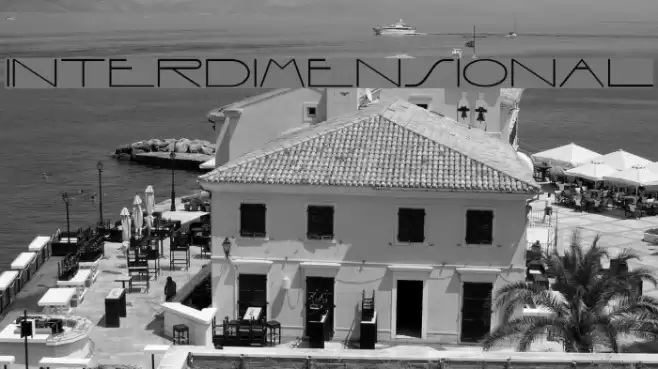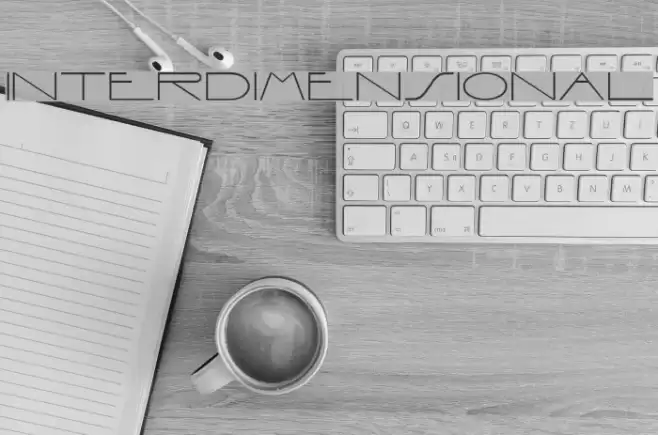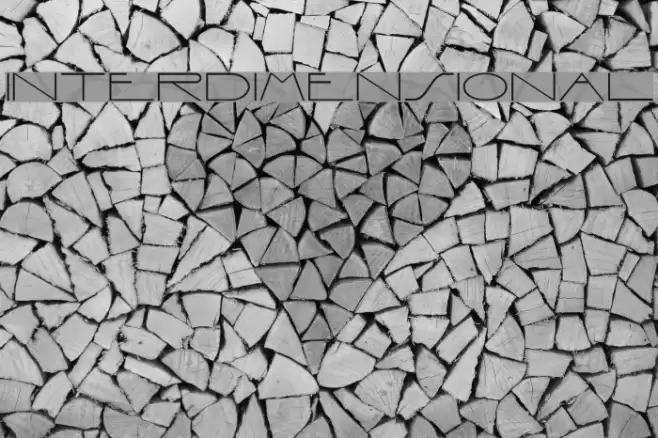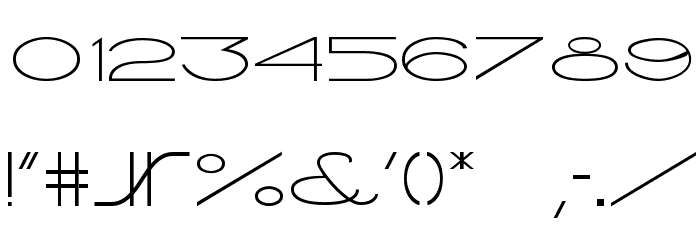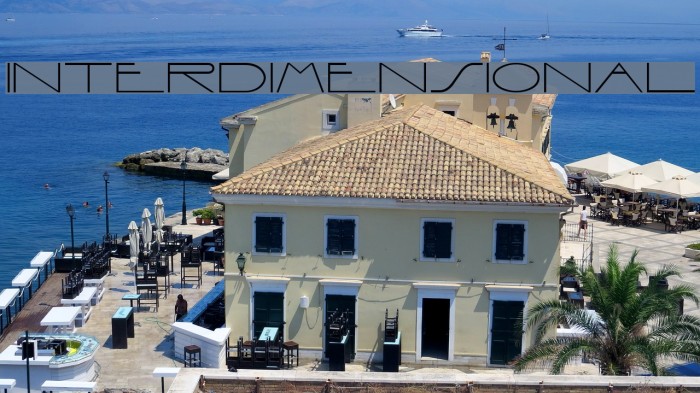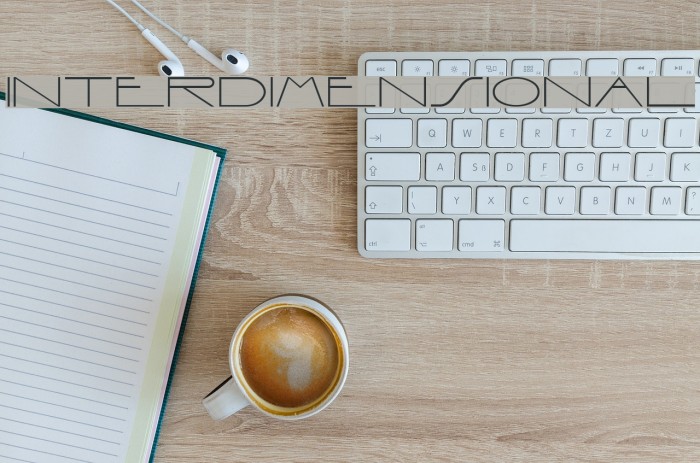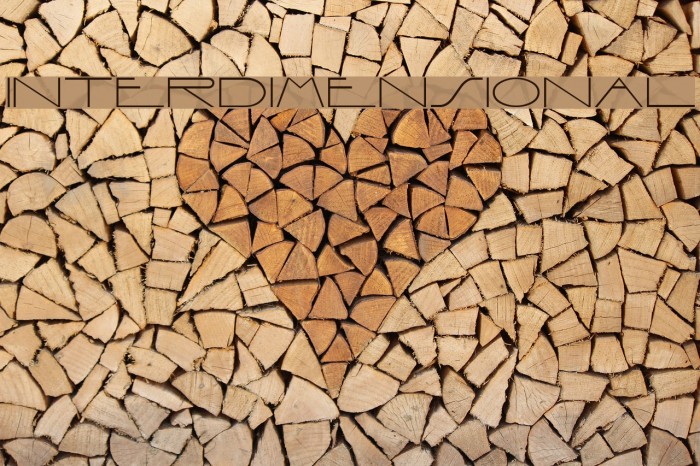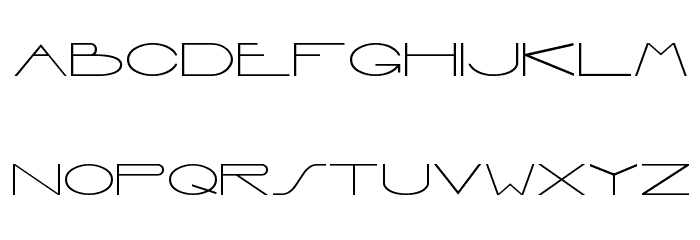
Interdimensional Font
Interdimensional Description
This font features a futuristic and geometric design, characterized by its thin, linear strokes and angular forms. The uppercase and lowercase letters maintain a consistent height, giving it a uniform appearance. The characters are constructed with straight lines and sharp angles, creating a sense of precision and modernity. The numerals and special characters follow the same design principles, ensuring cohesion across all glyphs. This font's minimalistic style is both sleek and sophisticated, making it ideal for contemporary design projects.
A futuristic, geometric font with thin, linear strokes and angular forms from Capitals fonts.
- Proposed Projects: Ideal for sci-fi themed designs, technology branding, modern posters, and digital interfaces.
- Weight: Light
- Overall Style: Futuristic
- Use Case: Headlines, Logos, Digital interfaces